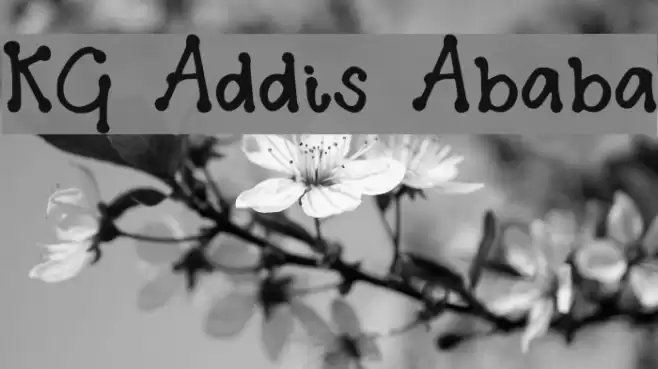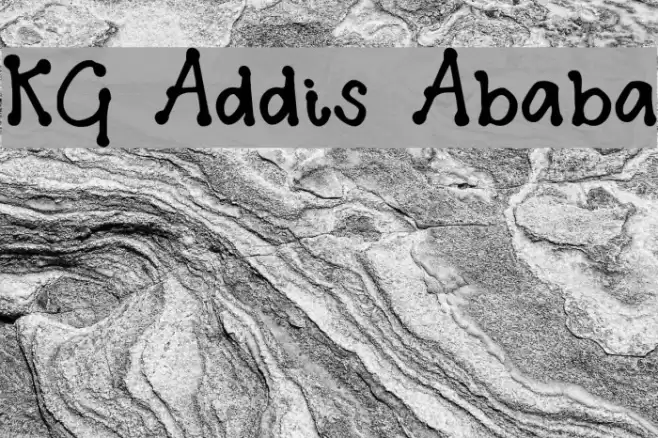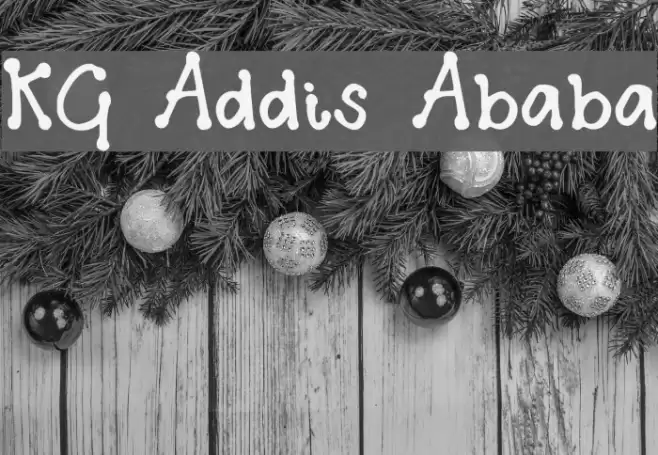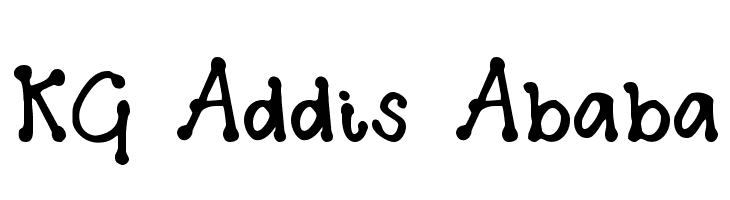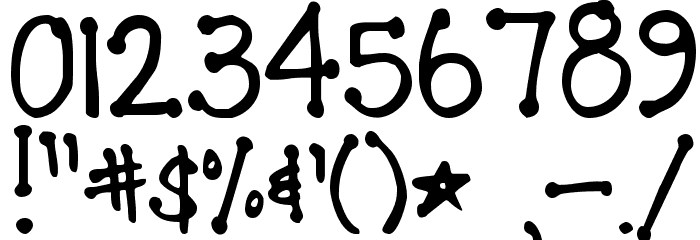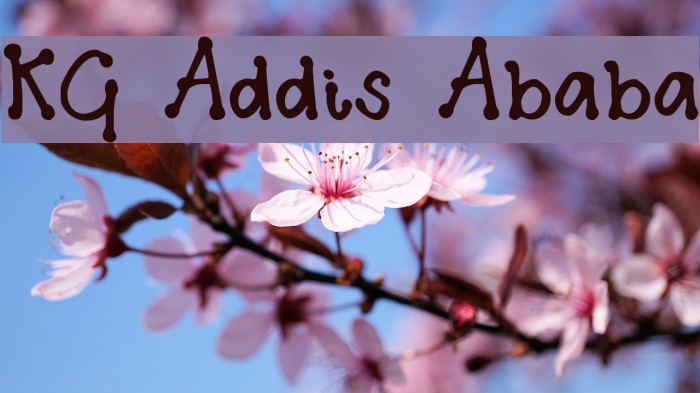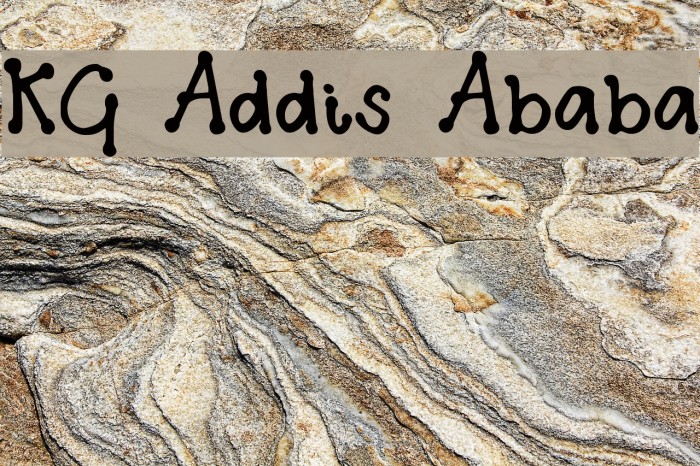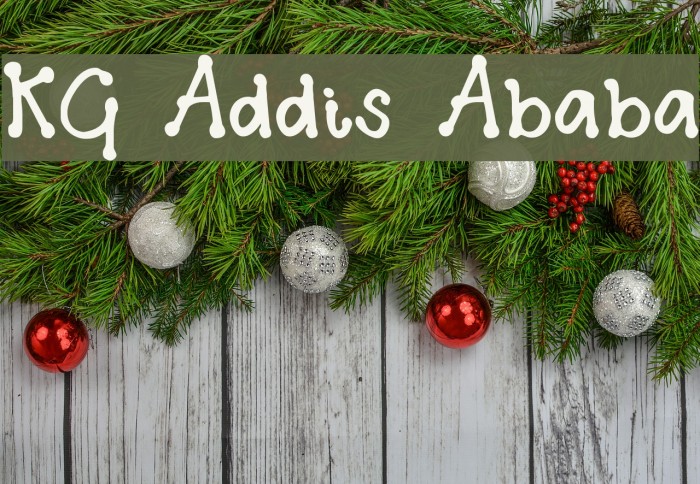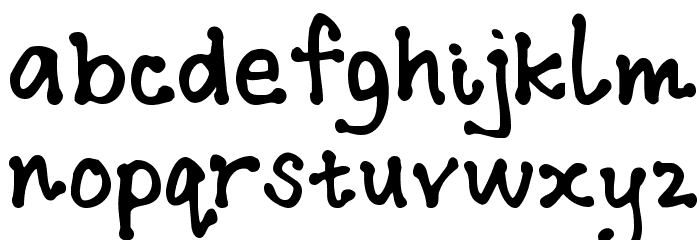
KG Addis Ababa Font
KG Addis Ababa Description
This font features a playful and informal style with a handwritten appearance. The characters are rounded and slightly irregular, giving them a whimsical and friendly look. The uppercase and lowercase letters maintain a consistent flow, while the numbers and special characters complement the overall design with their quirky shapes. The font's strokes are moderately thick, providing a bold presence without overwhelming the eye. Its casual and approachable style makes it suitable for projects that aim to convey warmth and creativity.
A playful, handwritten font with rounded, irregular characters from Uncategorized fonts.
- Proposed Projects: Ideal for children's books, creative posters, greeting cards, and informal branding.
- Overall Style: Casual
- Use Case: Headlines, Informal text, Creative projects